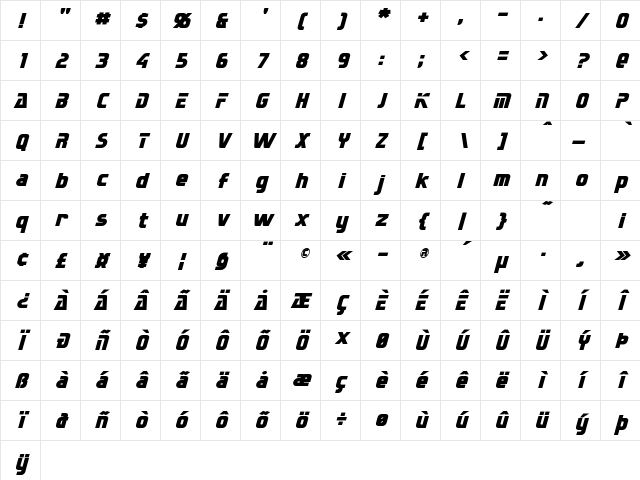
Sternbach Italic Free Font
Sternbach Italic
Foundry: Neale Davidson
Designer: Neale Davidson
Design Context for Sternbach
Sternbach is a composed and adaptable typeface that performs quietly and consistently across a wide range of design contexts. The slanted form adds forward momentum and visual energy.